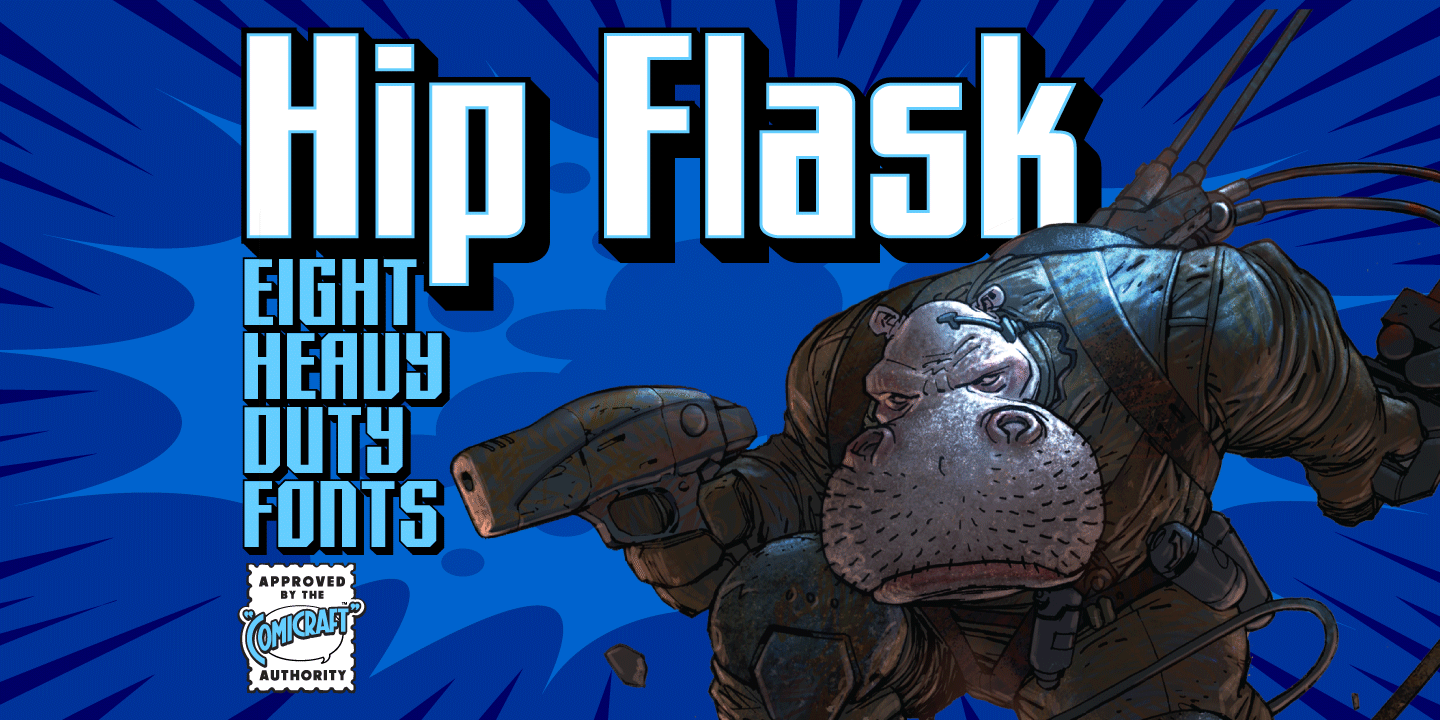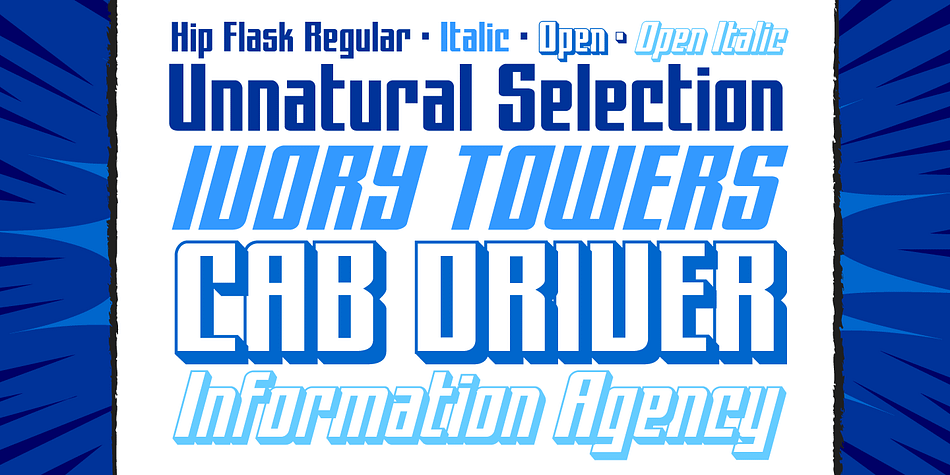
Designed by John Roshell, Hip Flask is a display sans font family. This typeface has eight styles and was published by Comicraft.
Well, if you found this page via Google and what you’re looking for is NOT a Slam Bang display and logo font (made famous by the logo of our sister company’s flagship comic book title, HIP FLASK), but in fact a small metal bottle suitable for brandy, whiskey or the spirit of your choice, then we deeply apologize. If you’ve read this far, then we’d like to point you to eBay where you’ll find a wide selection of the items you’re looking for. While you’re there you might also like to consider how difficult it is for HIP FLASK fans to find back issues of our comic amongst all those pewter and stainless steel christmas gifts for your golfing friends and fellow alcoholics.